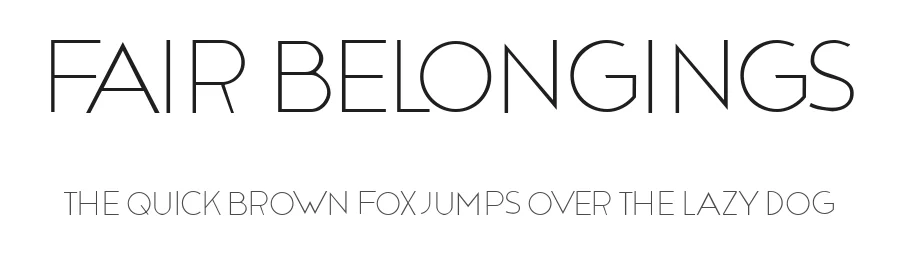
About Merlina Font
Merlina is an elegant, thin lettered sans serif font. This font is PUA encoded which means you can access all of the glyphs and swashes with ease!
Merlina Font is a versatile sans-serif font that works for both headings and body text. Pair it with a contrasting serif or slab serif font to add visual interest and a clear distinction between titles and body copy.